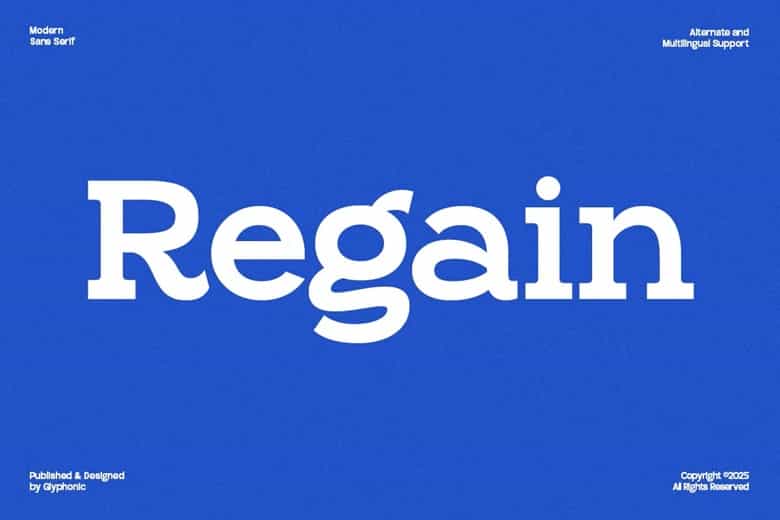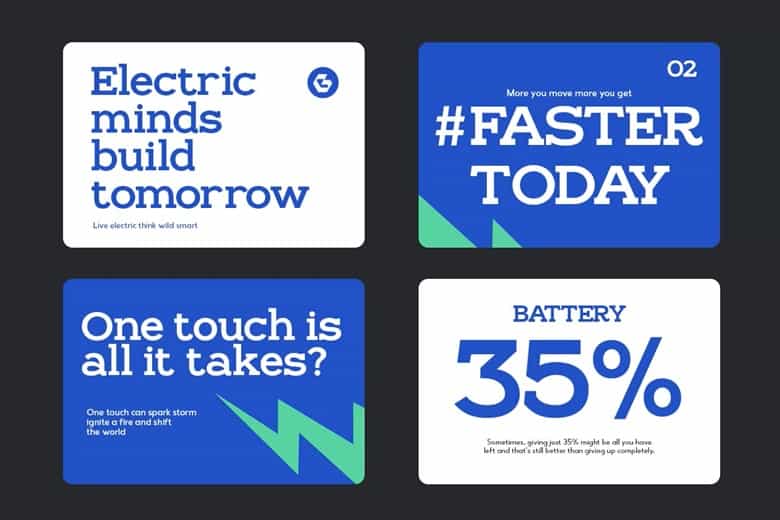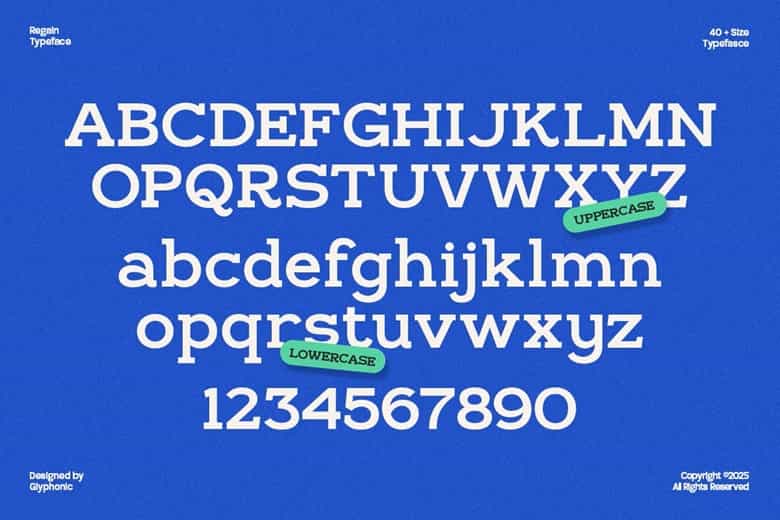
Meaning vintage strength with contemporary assurance, GC Regain is a strong display slab serif font. It will look perfect as a headline, branding, logos, packaging, and editorial layouts; devised to produce a lasting impression. GC Regain is a distinct design with thick slab serifs, a solid structure and its impressive letterforms add a personality and a commanding effect to any design.